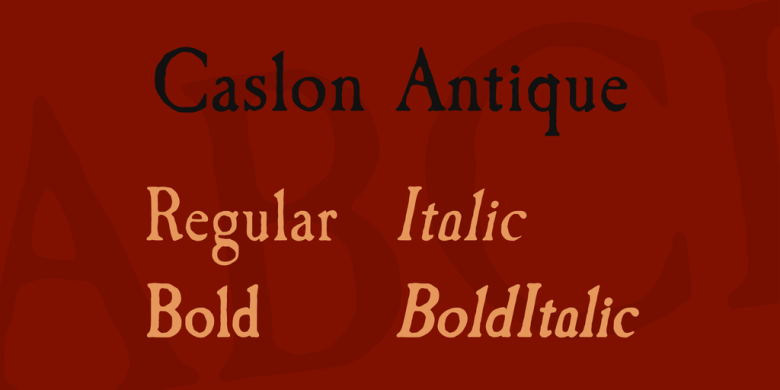
Caslon Antique Font Family
Caslon Antique Font
Introducing Caslon Antique Serif Font is a decorative American typeface that was designed in 1894 by Berne Nadall. Created in 1935, it was known initially as “Fifteenth Century”, before Nadall’s foundry, Barnhart Bros. & Spindler, renamed it “Caslon Antique” in mid-1920s. Their design of the typeface implies the Colonial style. The early printers would take metal type and engrave it over and over until its faces wore out and the appear to be pitted and worn. Caslon Antique is similar to this look.
Surprisingly, it has no connection with the Caslon types even if its name suggests that it is a descendant of that family. This re-naming is thought to have been a marketing strategy which would make a typeface, that had not been very popular, popular because of its name, caslon types. italic variation is also available through this font. Besides the versions that go by the name ‘Casablanca,’ Corel has its version of the same font branded as ‘Casablanca Antique. ’
Caslon Antique Serif Font Family